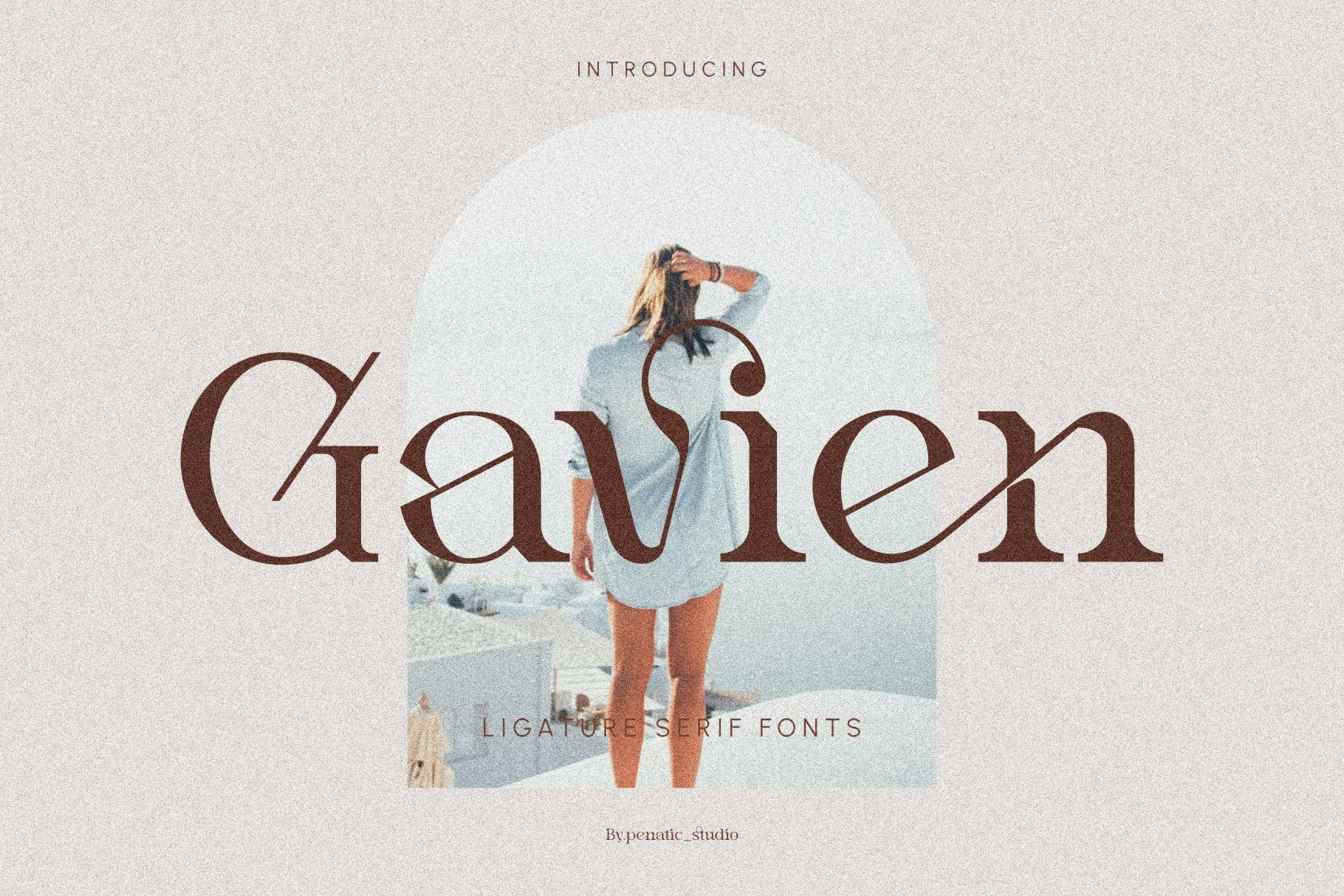
Gavien _ Ligature Serif Font
Elegant and Classy: This serif font is a symbol of elegance and poise. With classic serif characteristics, this font displays an elegant and classy touch that is suitable for various design purposes.
A Variety of Charming Ligatures: Crafted with deep attention to detail, this font offers a variety of charming ligatures. From the subtle joining of letters to the special decorations that adorn each character combination, each ligature adds a special touch to your text.
Improving Text Aesthetics: The ligatures included in this font not only serve as a connector between the letters, but also enhance the overall aesthetics of the text. They give an artistic feel and uniqueness to every word you write.